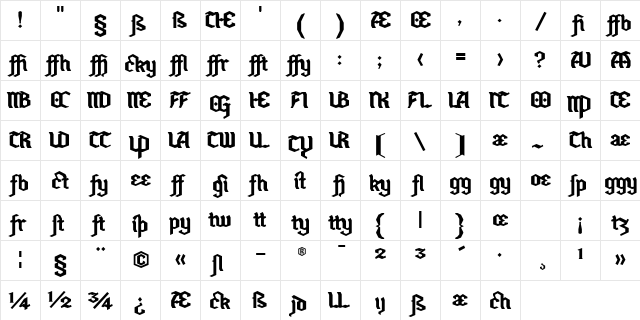
Hefeweizen AlternateLigaturesDTD
Design Context for Hefeweizen Typeface
Hefeweizen takes a measured approach to typography — its balanced proportions and neutral character make it a reliable workhorse for both digital and print work.